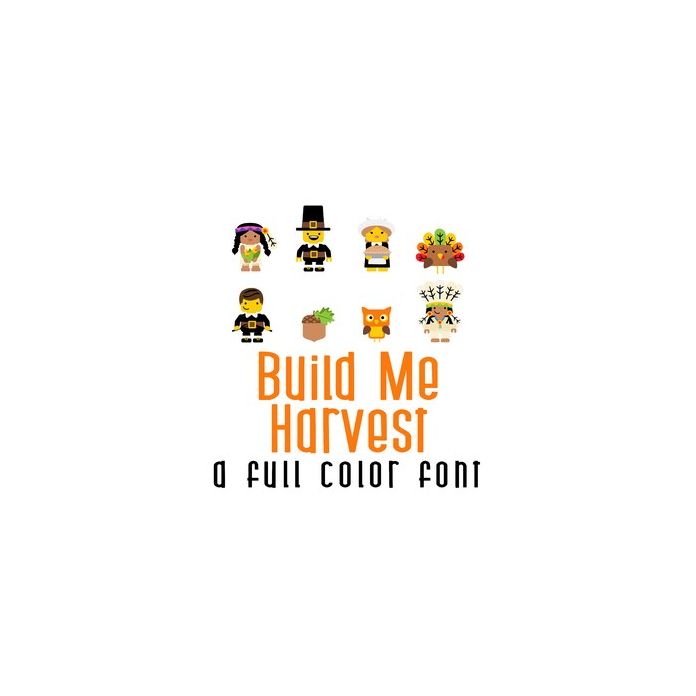
This adorable full-color doodlebat font features 26 fun minifigures ready for a feast. Perfect for cards, crafts, gifts, decor, scrapbook pages, planner stickers, and more!